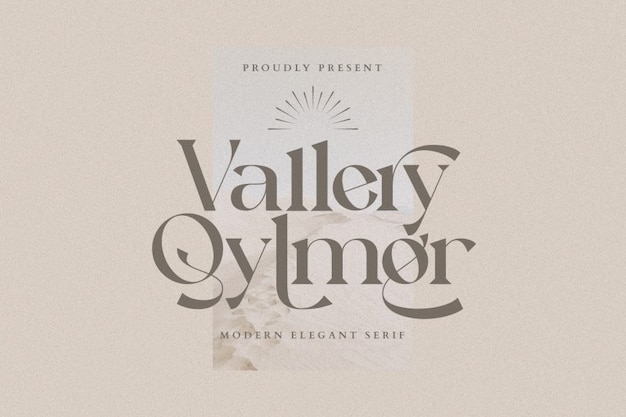
Vallery Qylmor
Vallery Qylmor Font
A font that defines modern elegance and oozes luxury. With its sleek and stylish letterforms, it brings a touch of sophistication to any design project. This font is a testament to contemporary aesthetics and opulent design, making it the perfect choice for high-end, luxurious creations. "Vallery Qylmor" encapsulates the essence of modern luxury and is sure to add a sense of refined elegance to your work.
Vallery Qylmor Regular (400)